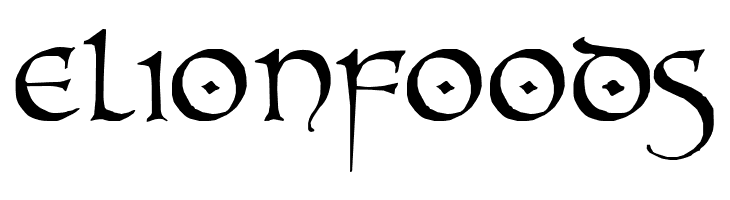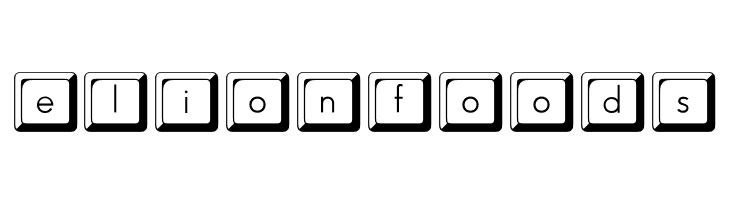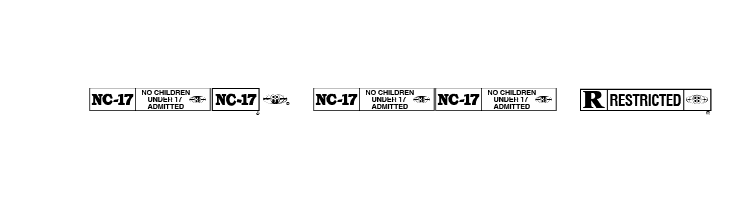
• Easter Sunrise
( Fonts by Renn Crump - http://moorstation.org/typoasis/designers/renncrump/ )
A whimsical, mushroom-themed decorative font with a playful, hand-drawn style.
• PR Uncial Alternate Capitals
( Fonts by Peter Rempel - www.prfonts.com )
A decorative, medieval-style font with ornate and historical elements.
• Auto Motive
• Airline Logos Past and Present
( Fonts by Steve Ferrera )
A varied set of airline logo fonts with modern, vintage, and decorative styles.
• Sealife
Ornate illustrated font with underwater sea life motifs.
• KeyCapsFLF
( Fonts by Casady & Greene )
A bold, sans-serif font with characters enclosed in square keycap-like frames.
• Barock Initialen
An ornate, Baroque-inspired decorative font with intricate floral designs.
• Farnoe Initials
( Fonts by Renn Crump - http://moorstation.org/typoasis/designers/renncrump/ )
A bold, decorative font with intricate patterns and vintage flair.
• BetsyFlanaganTwo-Regular
A 3D keyboard keycap style font with a retro tech aesthetic.
• MovieRatingsAndFormats